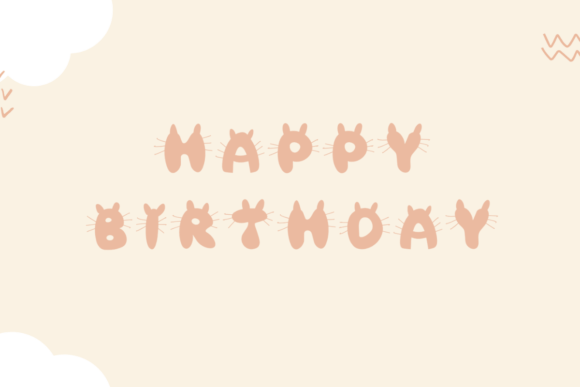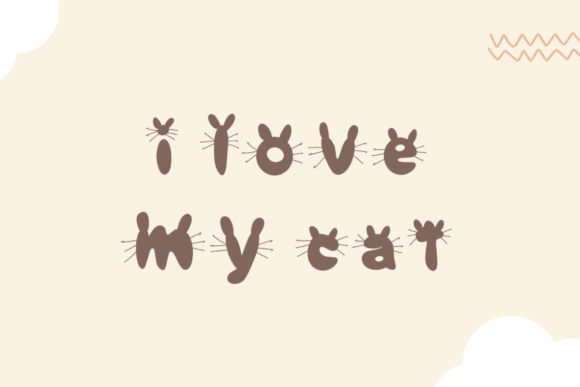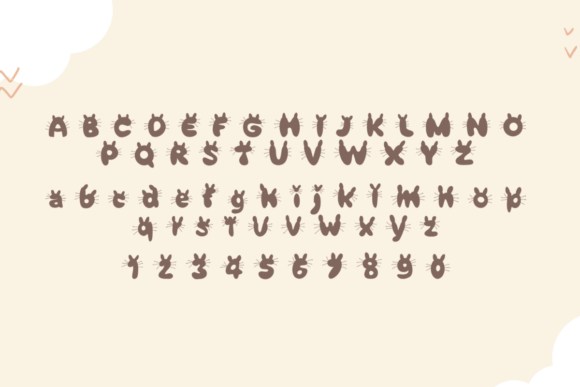
The Purrfect Font: A Comprehensive Guide to Cute Cat Font
As a designer, I’ve had my fair share of font struggles. I recall working on a project for a children’s cat-themed book, searching for the perfect font to bring the characters to life. That’s when I stumbled upon Cute Cat Font, a delightful display font that instantly captured the playful and adorable essence of our feline friends. In this article, I’ll share my experience with Cute Cat Font, its features, and how to make the most of it in various design projects.
- ✅ Adorable and playful design, perfect for kids and cute content
- ✅ Highly versatile, suitable for various projects such as cards, flyers, banners, book titles, and social media
- ✅ Easy to read, even in larger sizes
- ✅ Unique and quirky charm that sets it apart from other fonts
- ⚠️ May not be the best fit for formal or professional projects, as it’s quite playful and whimsical
- ⚠️ Some characters may appear a bit condensed, which can affect readability in smaller sizes
- Experiment with OpenType features, such as ligatures and stylistic alternates, to add visual interest to your text
The Designer Inspiration Behind Cute Cat Font
Cute Cat Font was designed with the intention of capturing the adorable and playful essence of our feline friends. The designer, inspired by the joy and companionship that cats bring to our lives, created a font that would reflect their cute and quirky personality. With its unique and whimsical design, Cute Cat Font is sure to bring a smile to anyone’s face.
A: Cute Cat Font is perfect for projects related to kids and cute content, such as children’s book titles, cat-themed cards and flyers, and social media graphics.